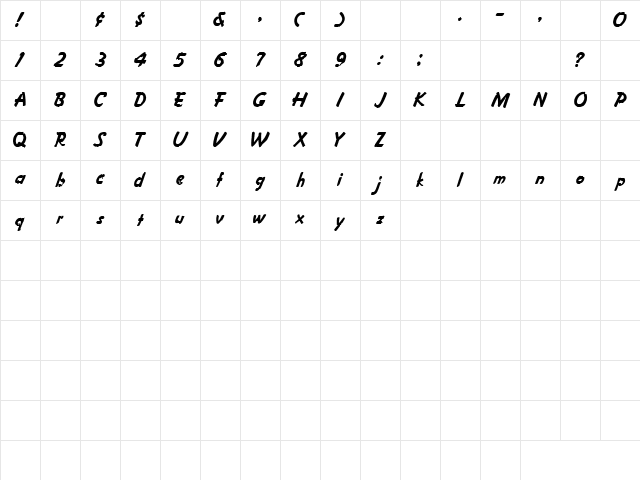
Restrained 1 Regular
Design Context for Restrained 1
Restrained 1 is a composed and adaptable typeface that performs quietly and consistently across a wide range of design contexts.